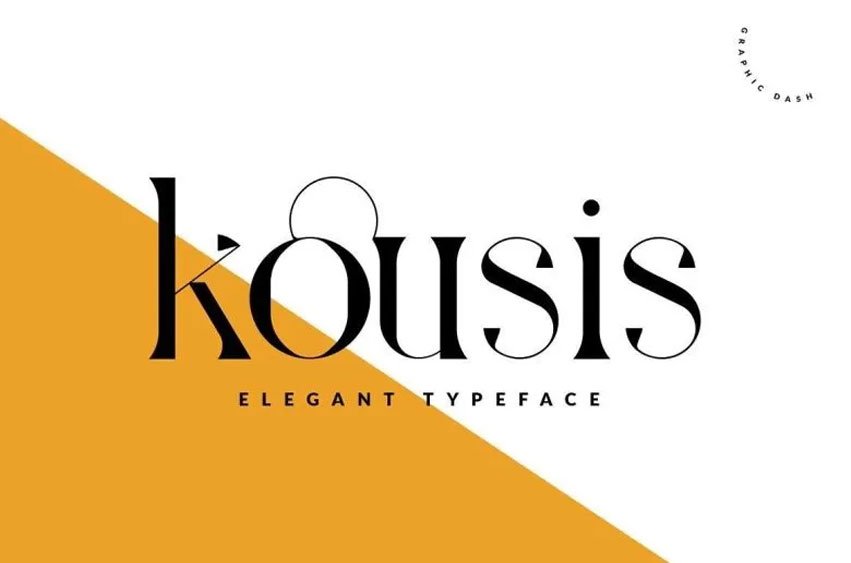
Kousis Font
Kousis Font Feminine Font constitutes an extensive elegant font type made for female-oriented design which presents elegant alternates alongside ligatures together with extensive multilingual capabilities.
Kousis provides clean-looking designs which deliver sophisticated details while maintaining an elegant appearance suitable for logotypes alongside magazine layouts that need clean stylish elements.